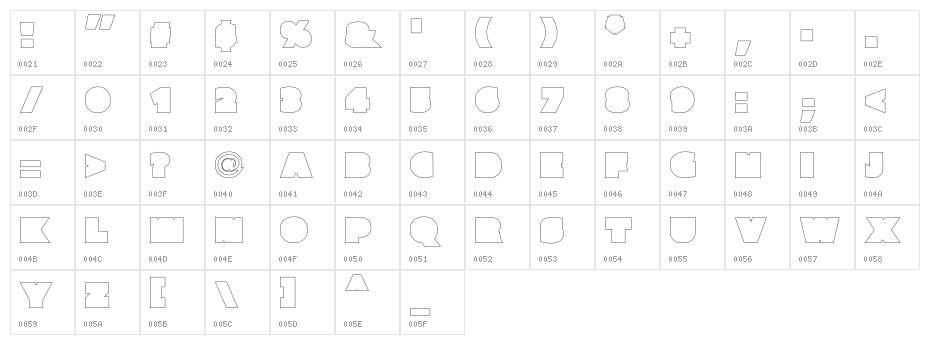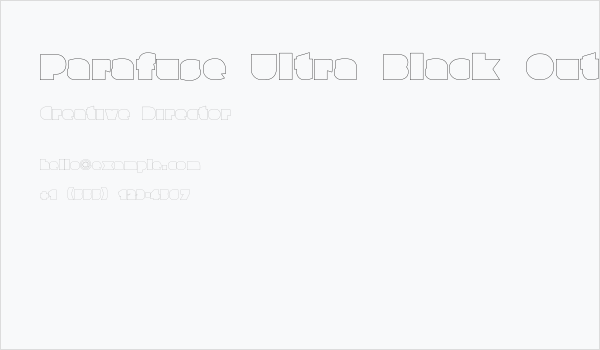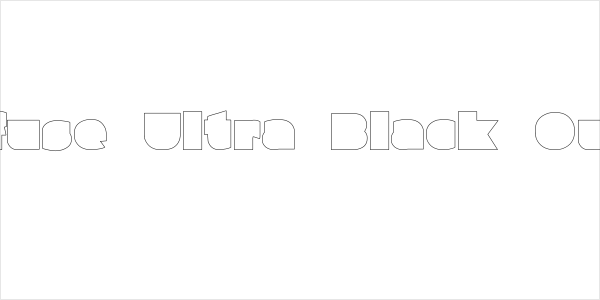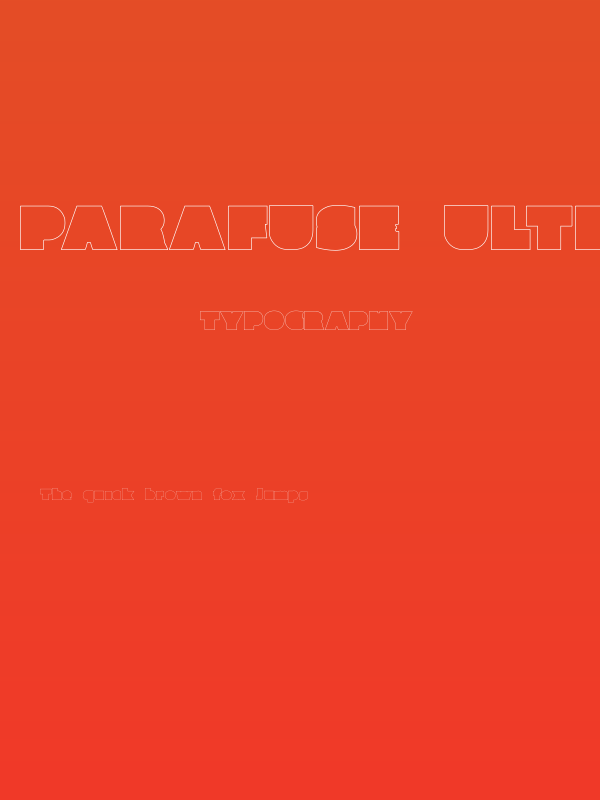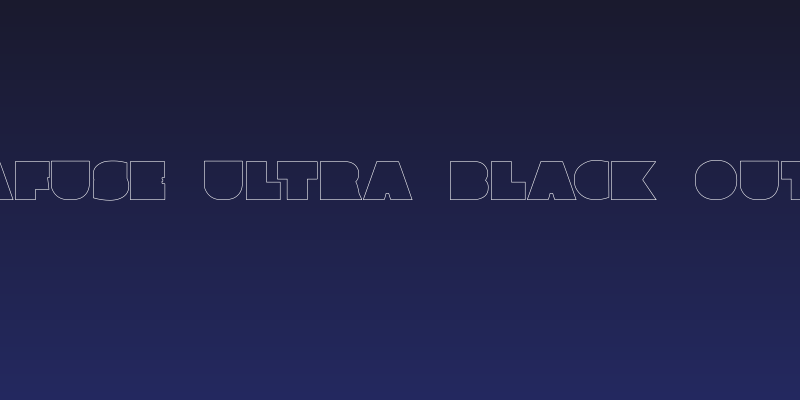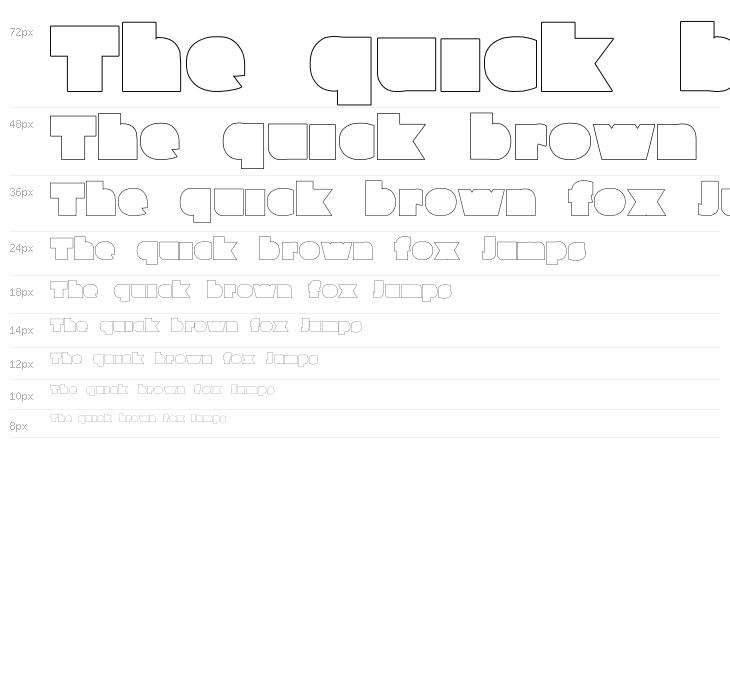
Parafuse Ultra Black Outline Font
Parafuse Ultra Black Outline Description
This font features a bold, geometric design with a distinct outline style. Each character is constructed with sharp angles and clean lines, giving it a modern and futuristic appearance. The uppercase and lowercase letters maintain a consistent width, creating a uniform look across the alphabet. The numbers and special characters follow the same design principles, ensuring a cohesive appearance throughout. The outline effect adds a unique dimension, making it stand out in various applications. This font is ideal for projects that require a strong visual impact, such as branding, posters, and digital media.
| Proposed Projects | Ideal for branding, posters, digital media, and any project needing a strong visual impact. |